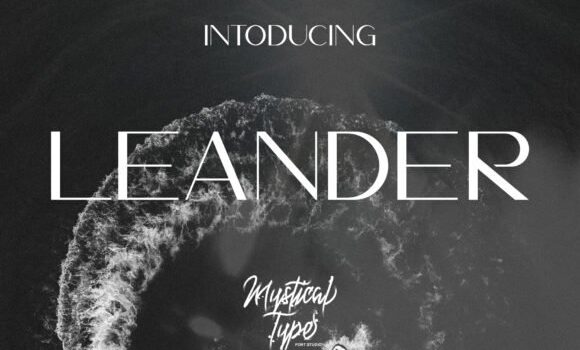
Leander Font – Free Download Introduction to Leander Font Leander is a really elegant and charming sans serif font. 📸 Preview Gallery 4 images 📌 Product Name Leander Font 👤 Author MysticalType 📂 Category Explore ⬇️ Download Leander Font FREE